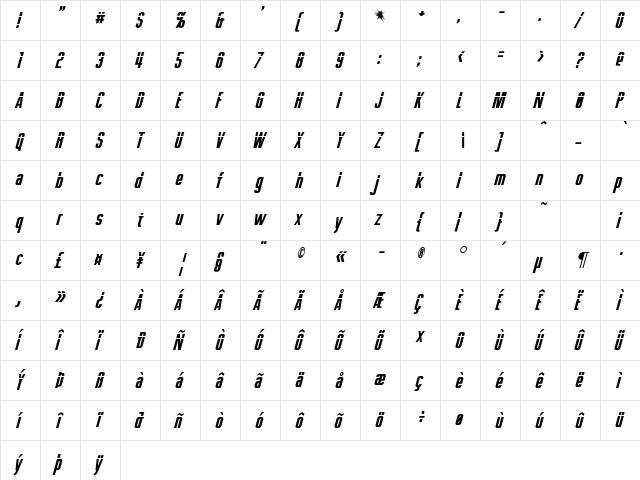
Phelps Italic
| Foundry | Pixel Sagas |
| Designer | Neale Davidson |
Design Context for Phelps Typeface
Phelps takes a measured approach to typography — its balanced proportions and neutral character make it a reliable workhorse for both digital and print work. The slanted form adds forward momentum and visual energy.
Pro Tip: Try Phelps for annotation and caption copy alongside an upright companion — the contrast in angle creates a dynamic but ordered typographic system.